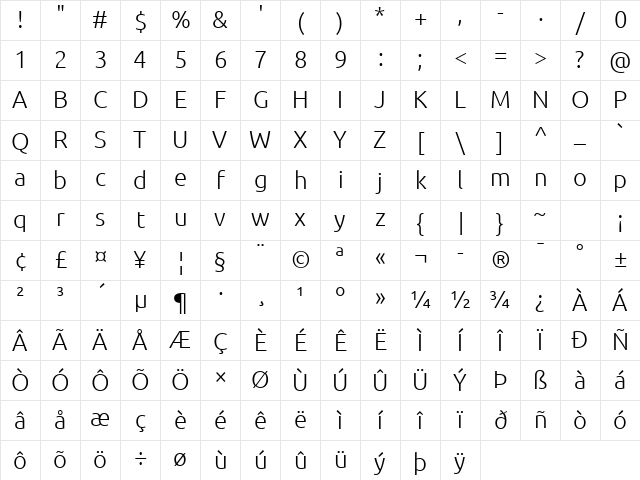
Ubuntu Light Regular
Foundry: Dalton Maag Ltd
Designer: Dalton Maag Ltd
Ubuntu Light Family
Complete Ubuntu Light Regular glyph index. Displaying only characters natively supported by Ubuntu Light Regular font.
Design Context for Ubuntu Light
Ubuntu Light is a composed and adaptable typeface that performs quietly and consistently across a wide range of design contexts. Its slender proportions lend an understated elegance to any composition.
Who designed the Ubuntu Light Regular font?